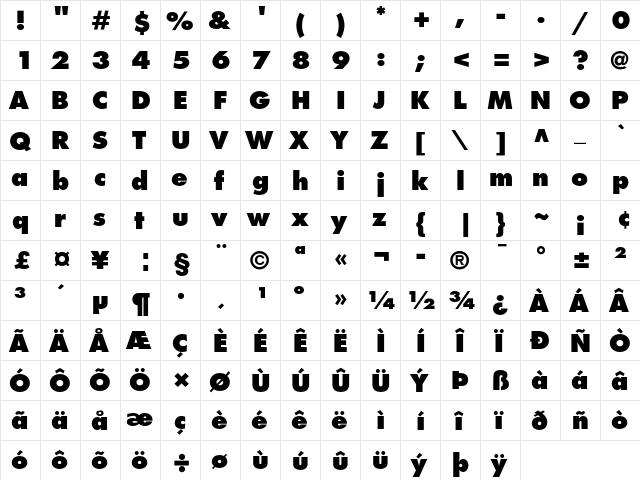
Futura Extra Bold Font Preview
Futura Extra Bold
Design Context for Futura Typeface
Futura channels digital-age aesthetics through its sharp, structured letterforms — ideal for brands that want to signal innovation. Its bold stroke weight gives it real presence on the page.
Pro Tip: Use Futura in combination with a neutral sans for body text. Let it define the brand voice in headlines while keeping reading comfortable elsewhere.